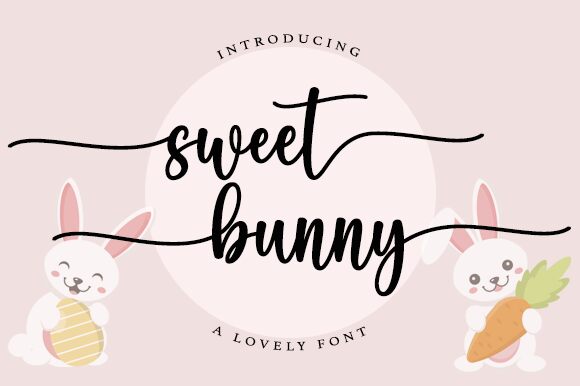
Sweet Bunny
Sweet Bunny, designed by Wahyu Studio, is a charming handwritten font with a semi-light weight and condensed width. With its playful and whimsical style, this font is perfect for creating designs for children's books, greeting cards, or invitations. The semi-light weight of the font adds an elegant touch to any project while the condensed width allows you to fit more text in a limited space. Use Sweet Bunny to add a touch of personality and fun to your designs. It's perfect for crafting logos, branding materials, or even social media graphics. Let your creativity run wild with Sweet Bunny!